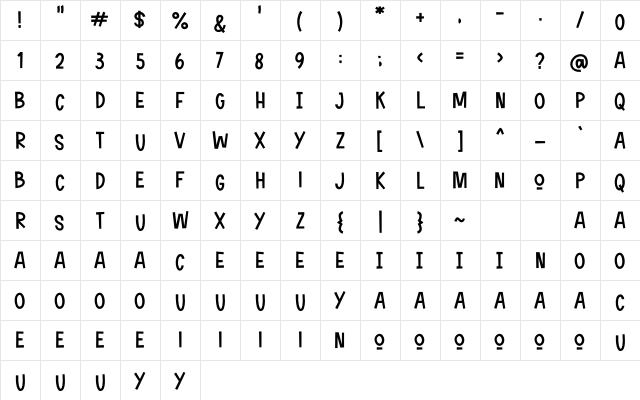
Sunday And Monday Regular
Design Context for Sunday And Monday
Sunday And Monday is a composed and adaptable typeface that performs quietly and consistently across a wide range of design contexts.
Pro Tip: Use Sunday And Monday in both headline and body roles to test its range before committing to a single application.